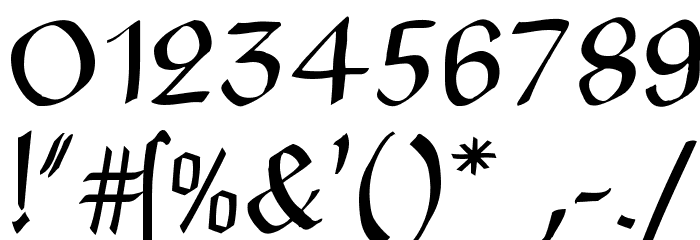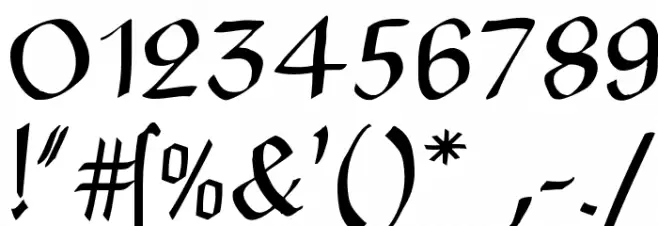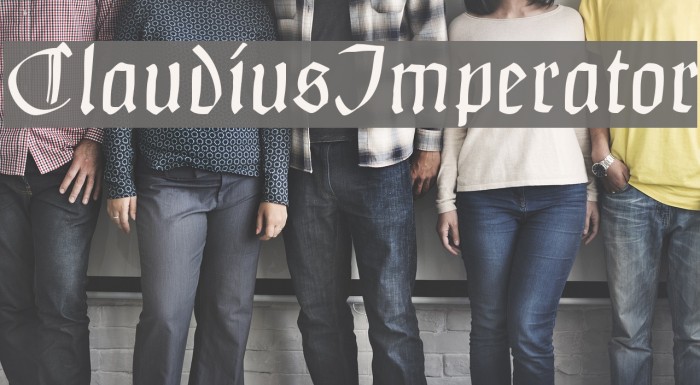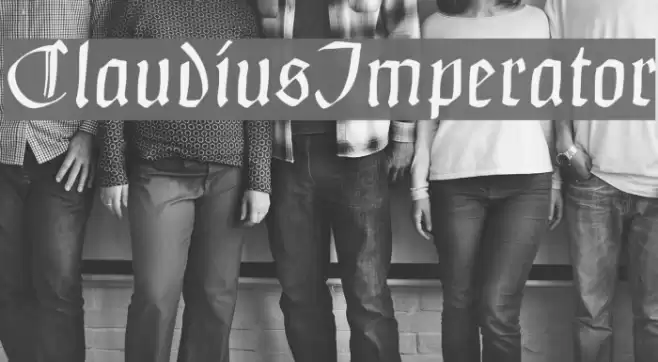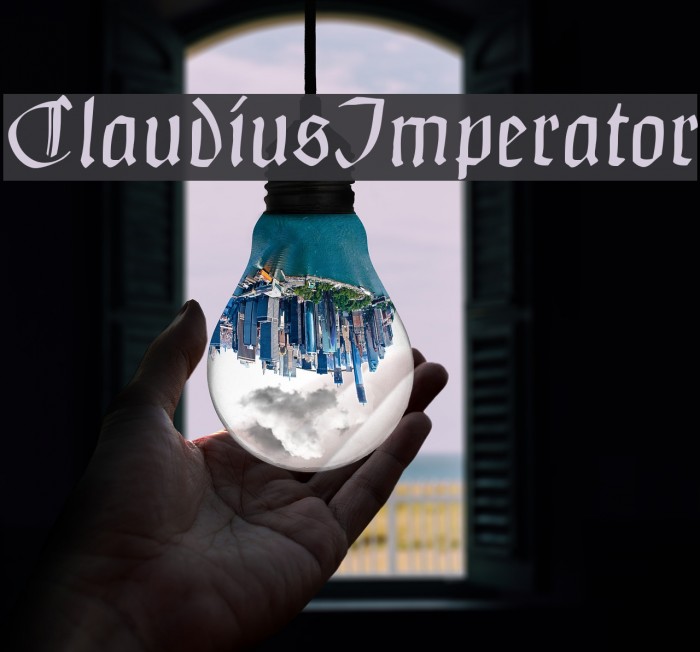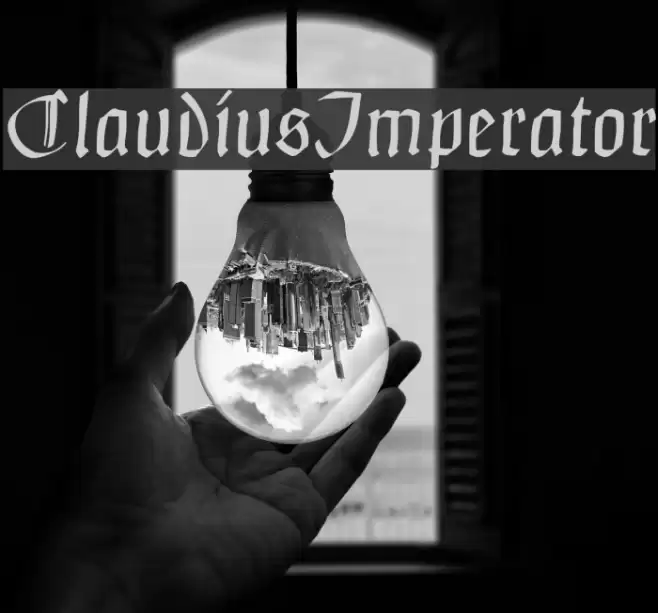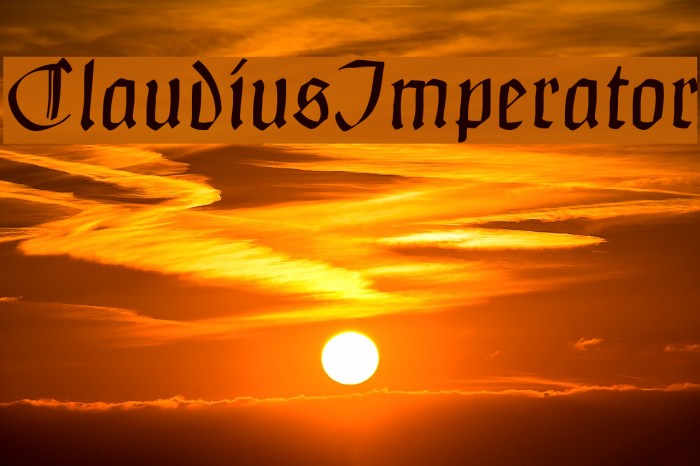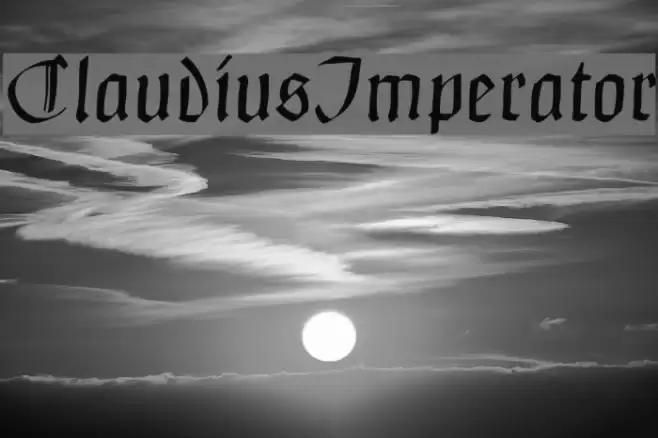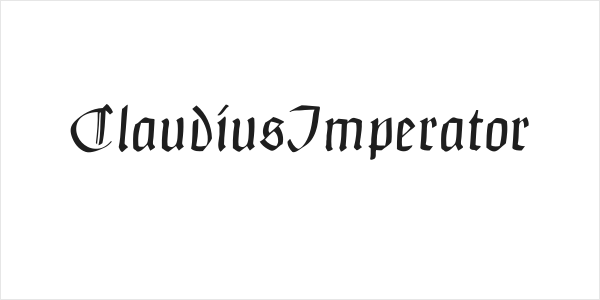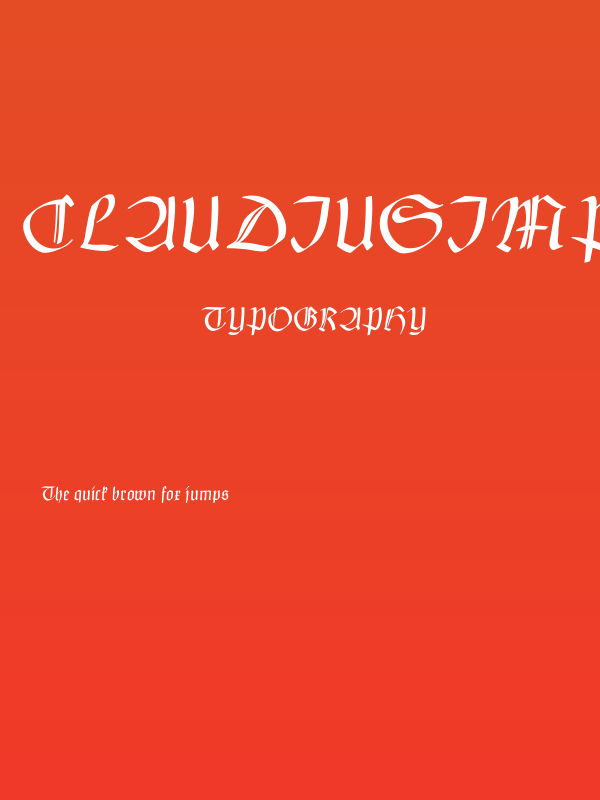
ClaudiusImperator Font
ClaudiusImperator Description
This font features a distinct blackletter style, characterized by its sharp, angular lines and dramatic flourishes. The uppercase letters exhibit a traditional Gothic influence, with intricate details and a sense of historical elegance. The lowercase letters maintain a consistent style, offering a bold and authoritative appearance. Numbers and special characters are designed to complement the overall aesthetic, ensuring a cohesive look across all text elements. The font's unique style makes it suitable for projects that require a touch of medieval or historical flair.
| Proposed Projects | Ideal for historical documents, medieval-themed designs, book covers, and decorative invitations. |